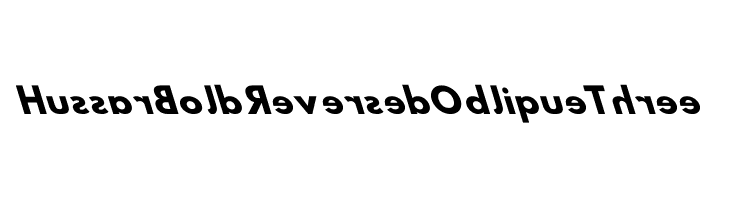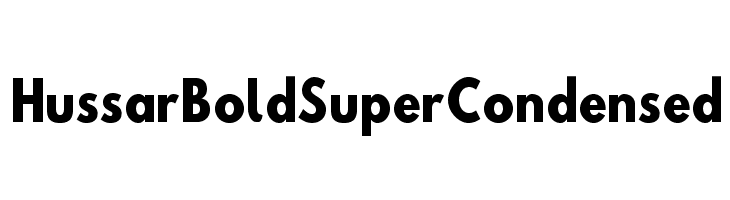
A bold, reversed oblique font with a modern and dynamic style.
A bold, super condensed font with strong, uniform strokes and minimal spacing.
A bold, super condensed, and oblique font with tight spacing and strong visual impact.
A bold, super extended sans-serif font with a modern and impactful style.
A bold, super extended, and oblique font with a modern and dynamic style.
A bold, super extended oblique font with a dynamic and energetic style.
A bold, super extended, and oblique font with a modern and dynamic style.
A bold, wide font with strong, thick strokes for a modern look.
A bold, wide, and oblique font with a modern and dynamic style.
A bold, oblique font with thick strokes and a dynamic, slanted design.